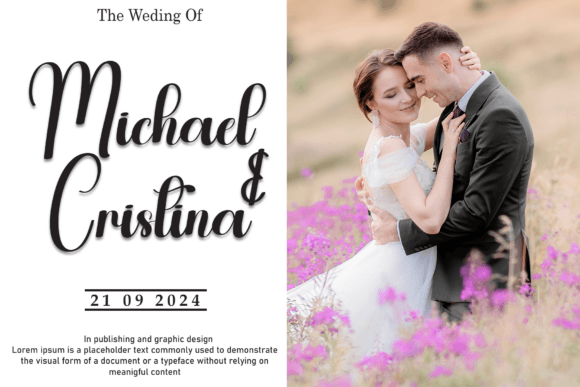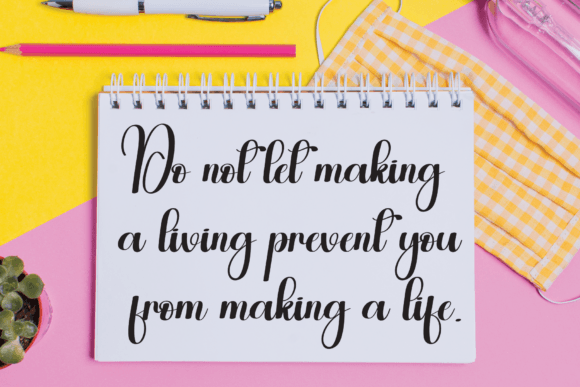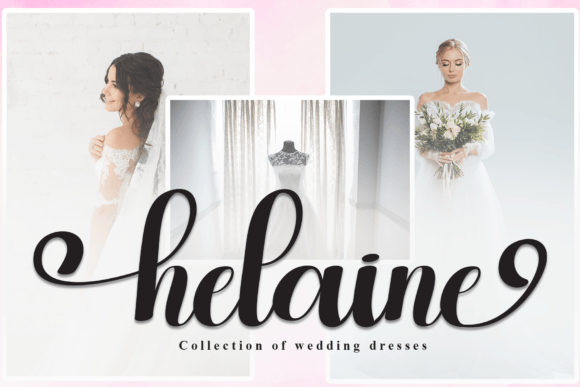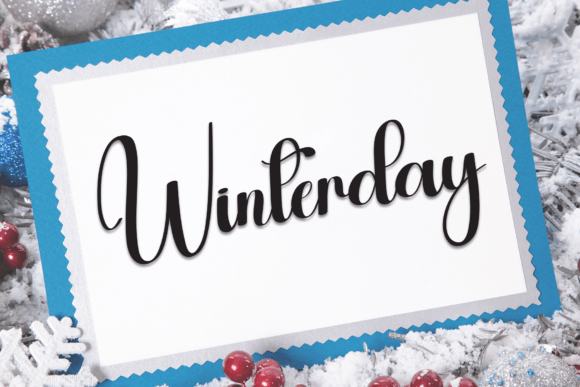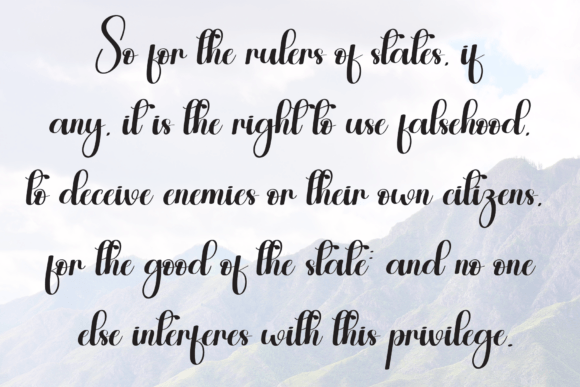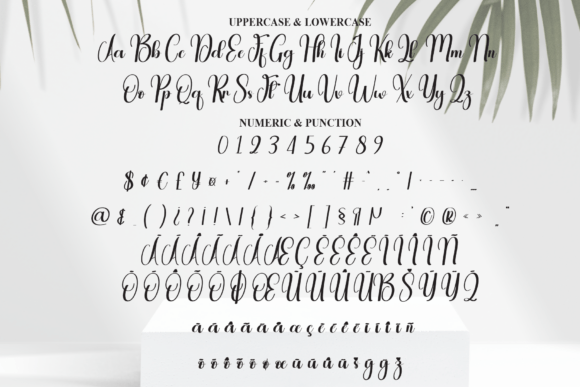
The Bionic Font: A Fun and Creative Game-Changer for Designers
I’ll never forget the time I was working on a project for a client’s birthday party invitation. I had the design concept all sorted out, but I was stuck on finding the perfect font. I wanted something that would make the invitation stand out, something fun and playful, but also elegant and sophisticated. That’s when I stumbled upon the Bionic font. It was love at first sight! 💕
The Bionic font is a bold, handwritten font that exudes a fun and creative style. Its thick and playful letters make it perfect for eye-catching designs that add a personal touch to any project. Whether you’re working on invitations, posters, or social media graphics, the Bionic font is sure to make your design pop!
- 💥 The Bionic font is incredibly versatile and can be used for a wide range of design projects.
- ✅ Its bold and playful letters make it perfect for creating eye-catching designs.
- 🎉 The font has a fun and creative style that’s sure to add a personal touch to any project.
- 👍 The font is easy to read, even in smaller sizes.
- ⚠️ The Bionic font can be a bit overpowering if used in large blocks of text.
- 🤔 Some of the letters may appear a bit uneven or wobbly, which can be a bit distracting.
The Designer Inspiration Behind Bionic
The Bionic font was designed by a team of creative designers who wanted to create a font that would add a personal touch to designs. The font was inspired by the world of handwriting and the imperfections that make it unique. The designers behind Bionic aimed to create a font that would be fun, creative, and easy to read.
Q: What is the Bionic font?
A: The Bionic font is a bold, handwritten font that has a fun and creative style.
Q: What can I use the Bionic font for?
A: You can use the Bionic font for a wide range of design projects, including invitations, posters, social media graphics, and more.
Q: Is the Bionic font easy to read?
A: Yes, the Bionic font is easy to read, even in smaller sizes.